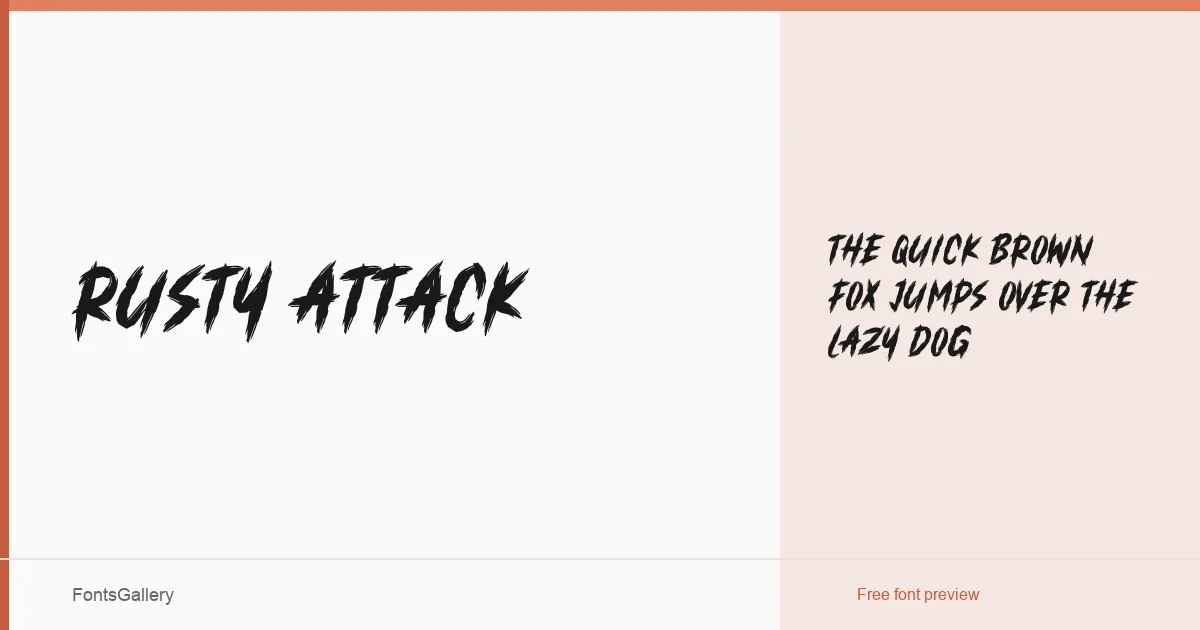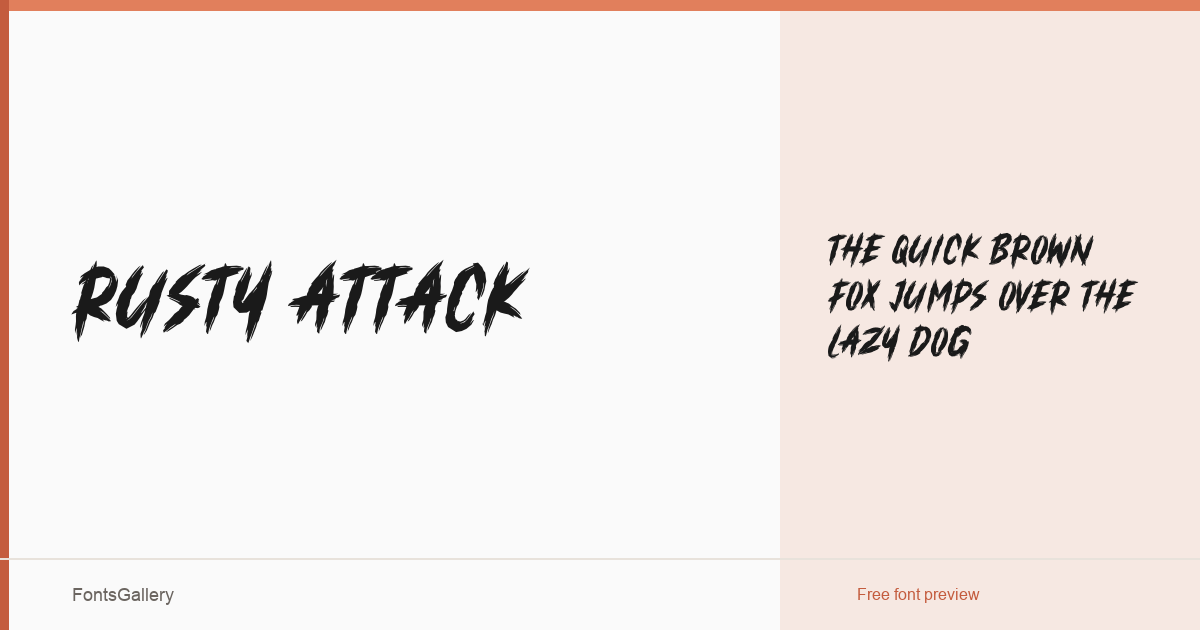
About RUSTY ATTACK Font
RUSTY ATTACK is a commanding display typeface crafted by Elbanadha Creative, designed to make a powerful statement wherever it appears. Rooted in a vintage, grunge-inspired aesthetic, it brings raw energy and rugged character to any design project. Its bold, rustic personality makes it instantly eye-catching and memorable.
The letterforms of RUSTY ATTACK embrace a worn, textured quality that channels vintage boldness and gritty, grunge-era authenticity. Each character carries a heavy, commanding weight with rustic imperfections that give the typeface its distinctive rough-edged charm. This distressed, tactile style creates a sense of depth and history that sets it apart from conventional display fonts.
RUSTY ATTACK excels in high-impact applications such as logos, posters, branding campaigns, social media graphics, and t-shirt designs where a bold, vintage statement is essential. For a balanced typographic composition, it pairs effectively with the clean neutrality of Helvetica or the complementary character of Aresink.